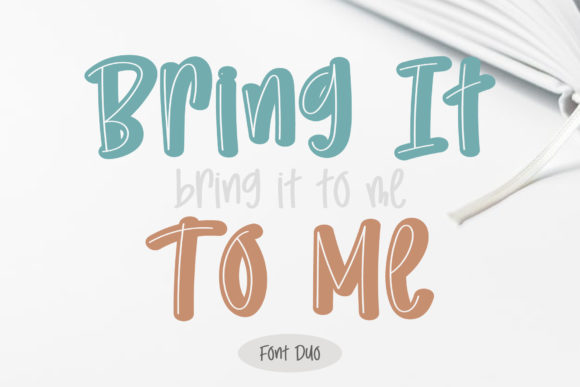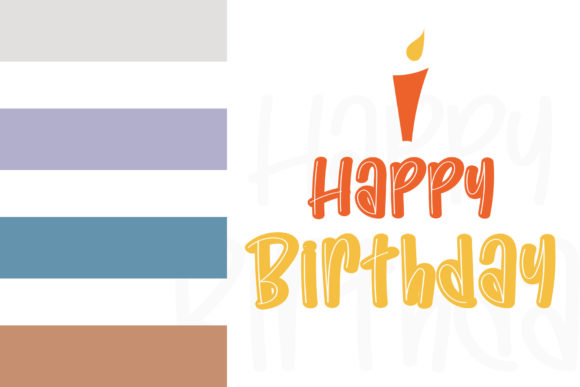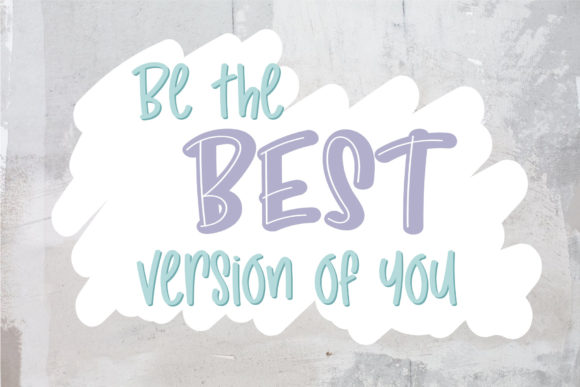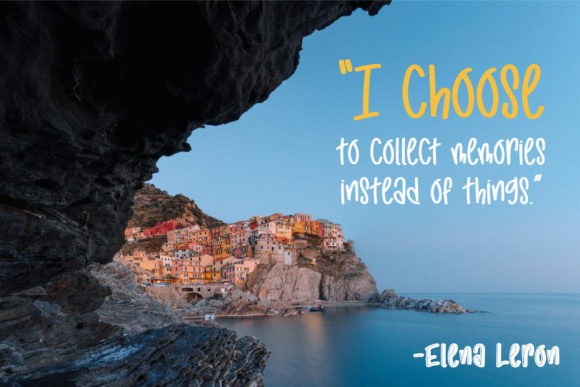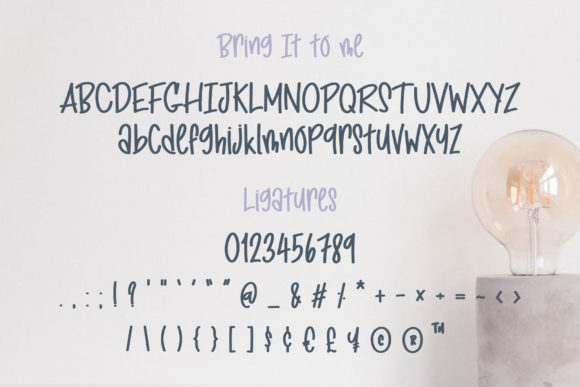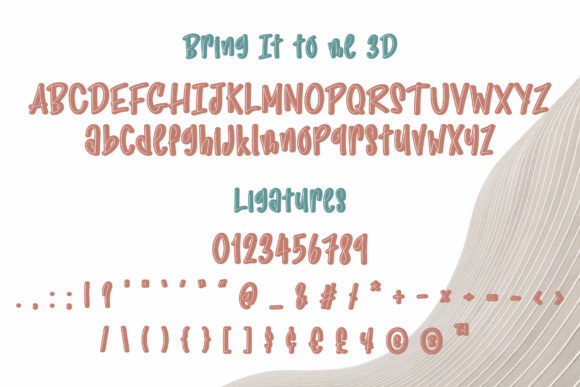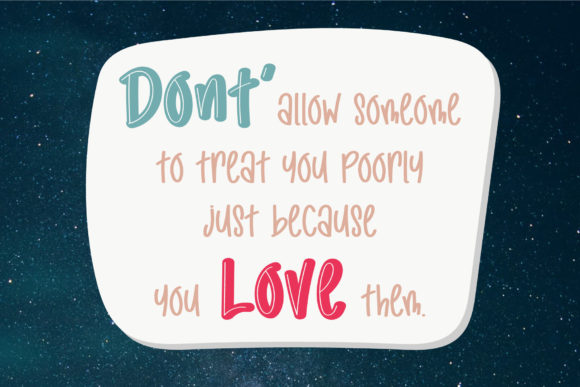
Bring It to Me Font
About Bring It to Me Font
Bring It to Me consists of two fonts designed to complement each other perfectly. Together or apart, these fonts are ideal for adding a chic and cheery touch to your crafts.